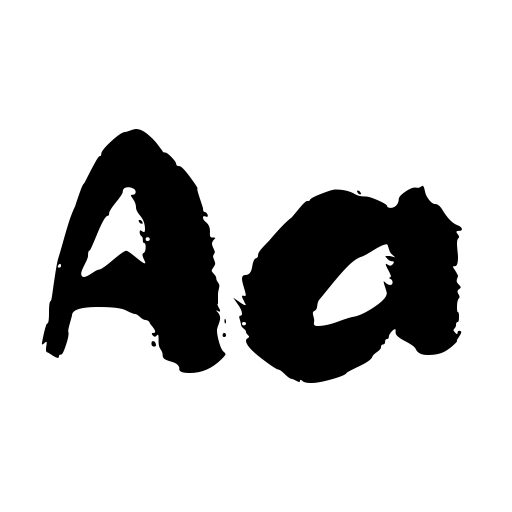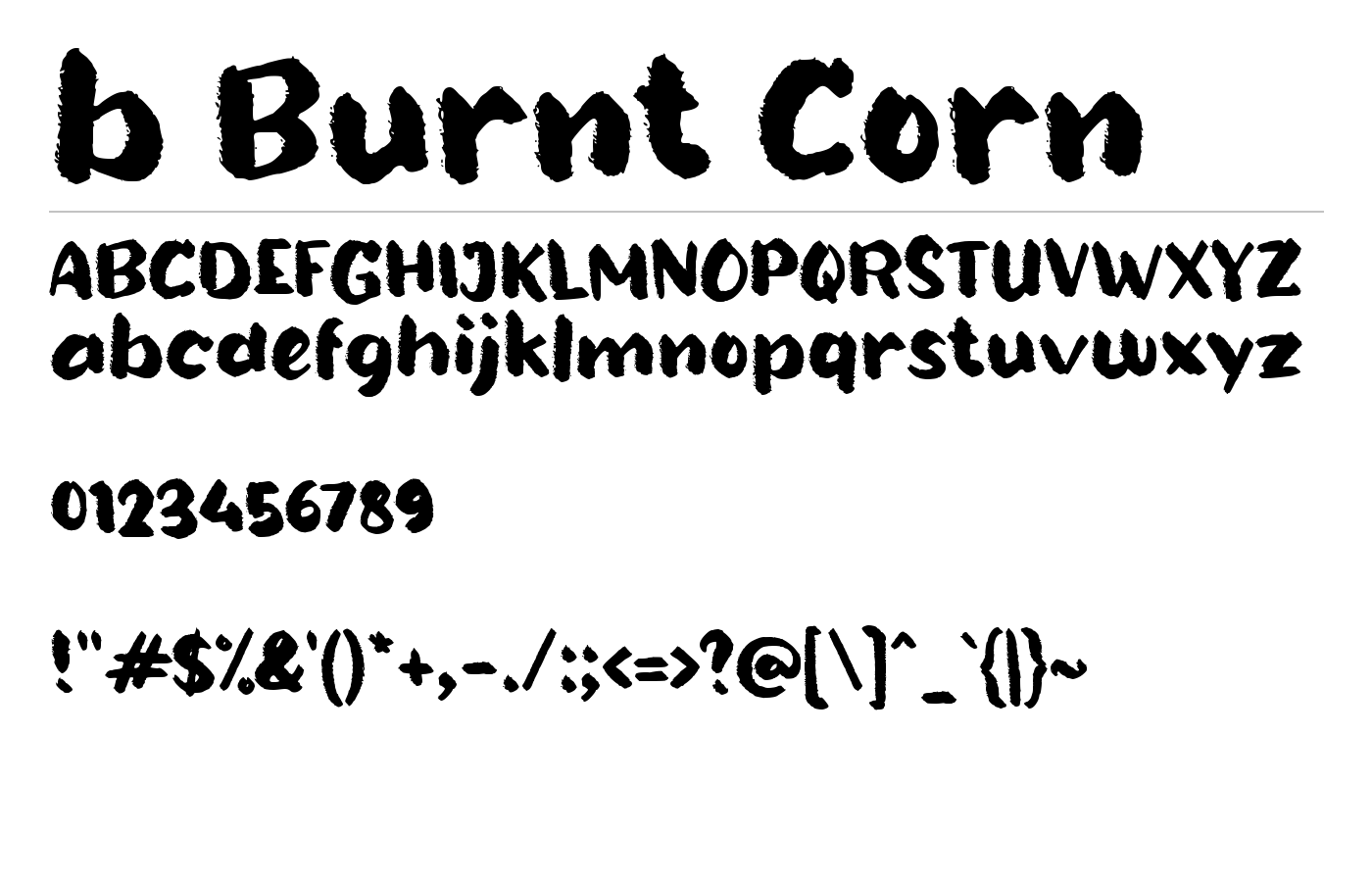
Burnt Corn is a bold, textured sans serif font with a handmade feel, featuring a rough, brushstroke-like texture that gives it an organic, casual vibe. Its irregular and playful letterforms work well for creative, informal designs such as posters, packaging, and branding that want to convey energy and uniqueness. This font shines in large sizes where its distinctive texture can be appreciated, making it ideal for headlines and eye-catching display uses.
b Burnt Corn Font
About b Burnt Corn Font